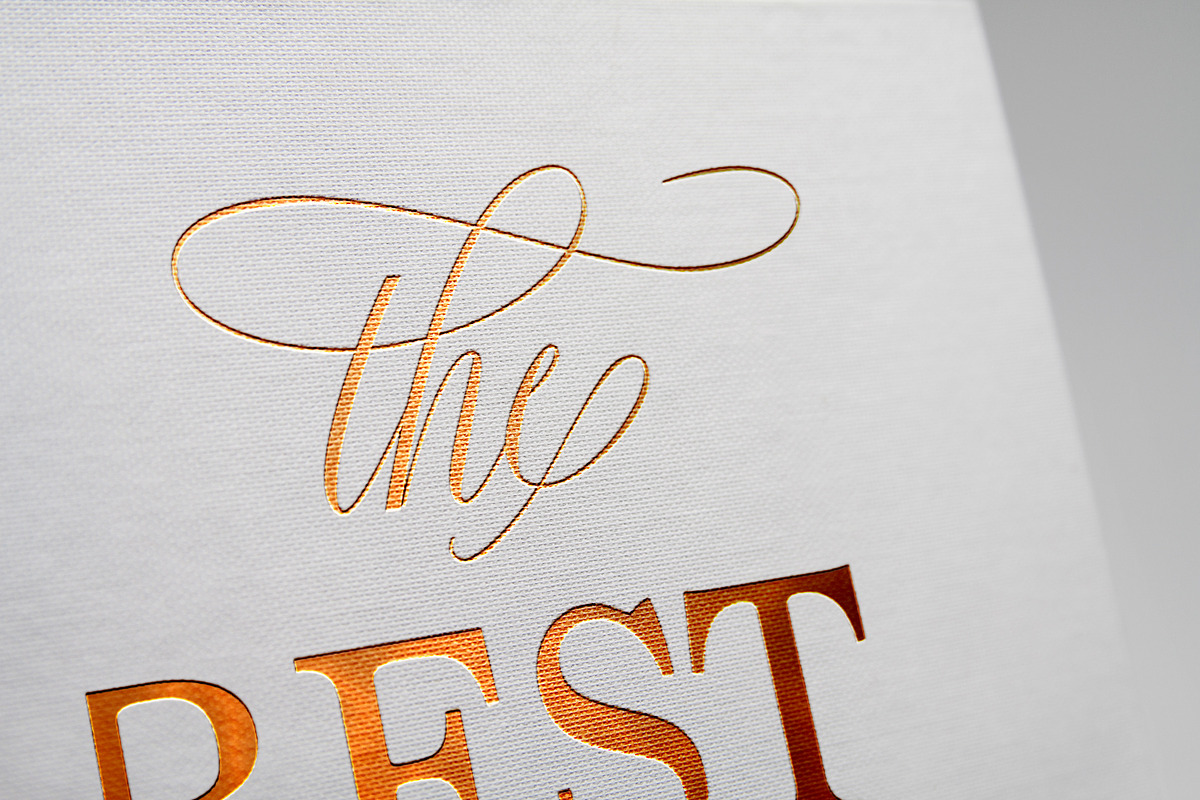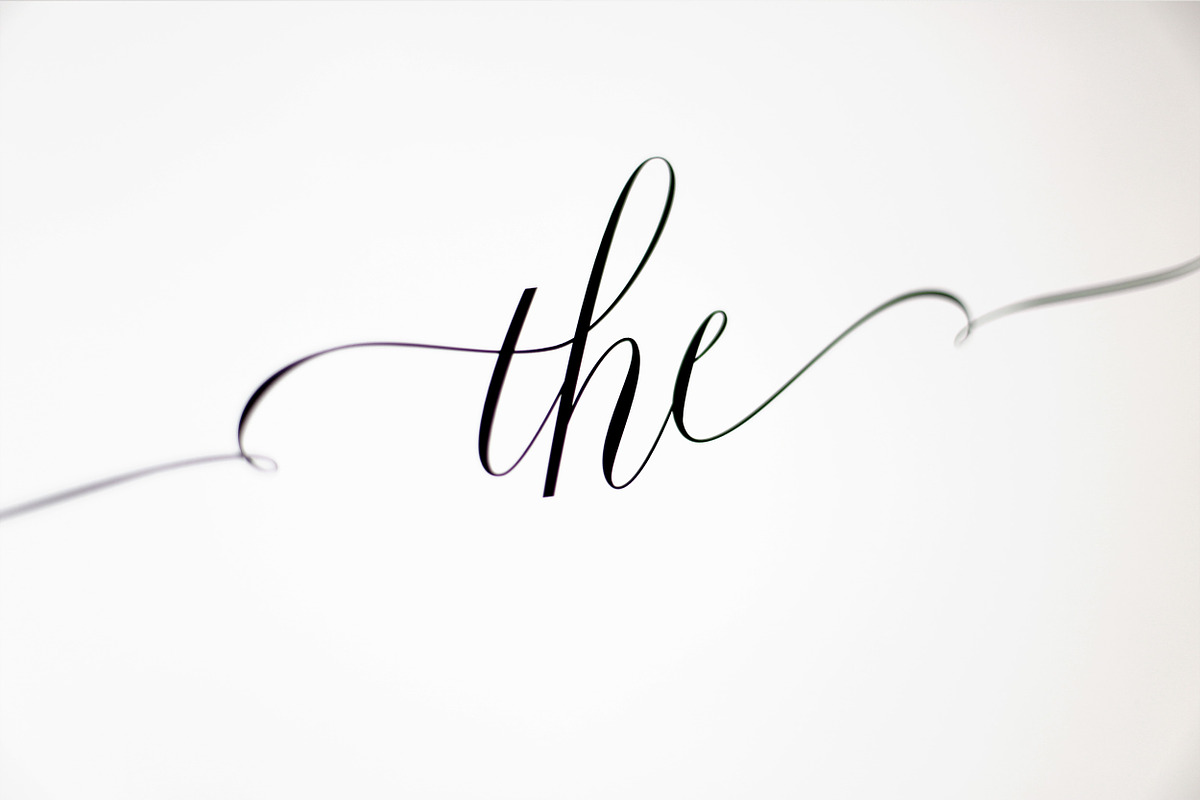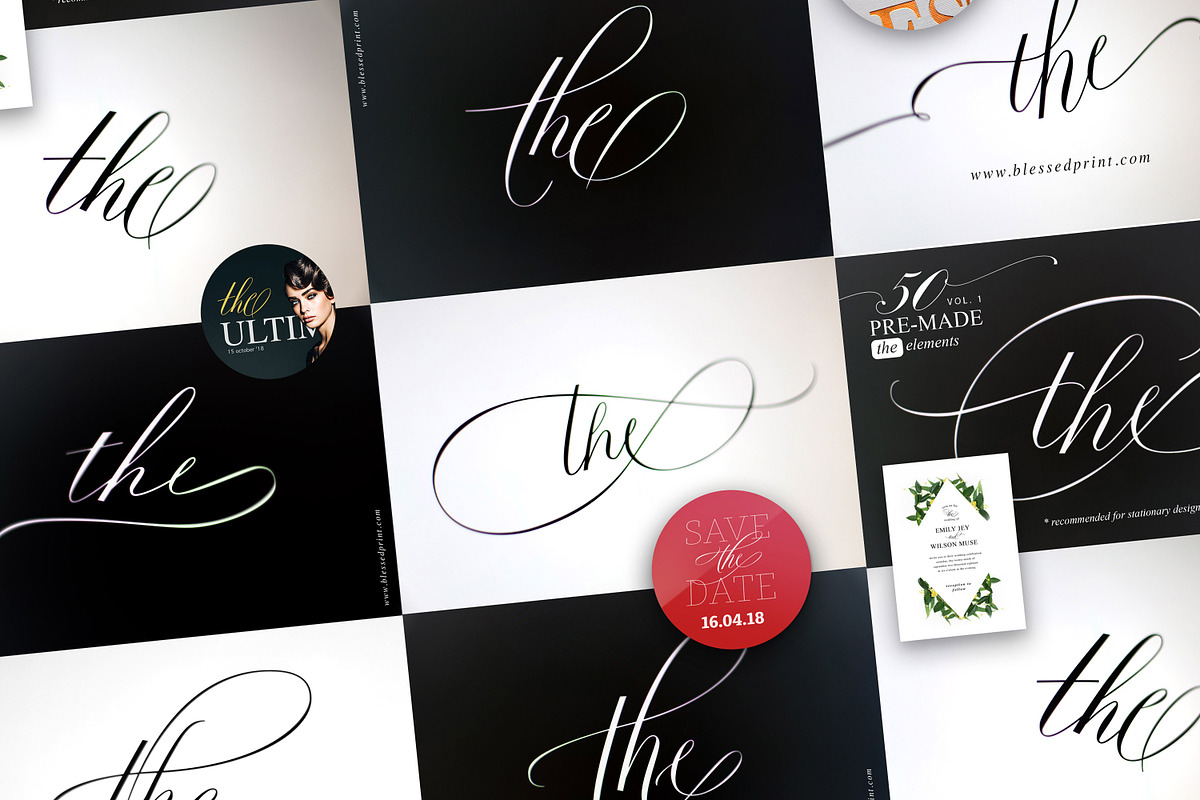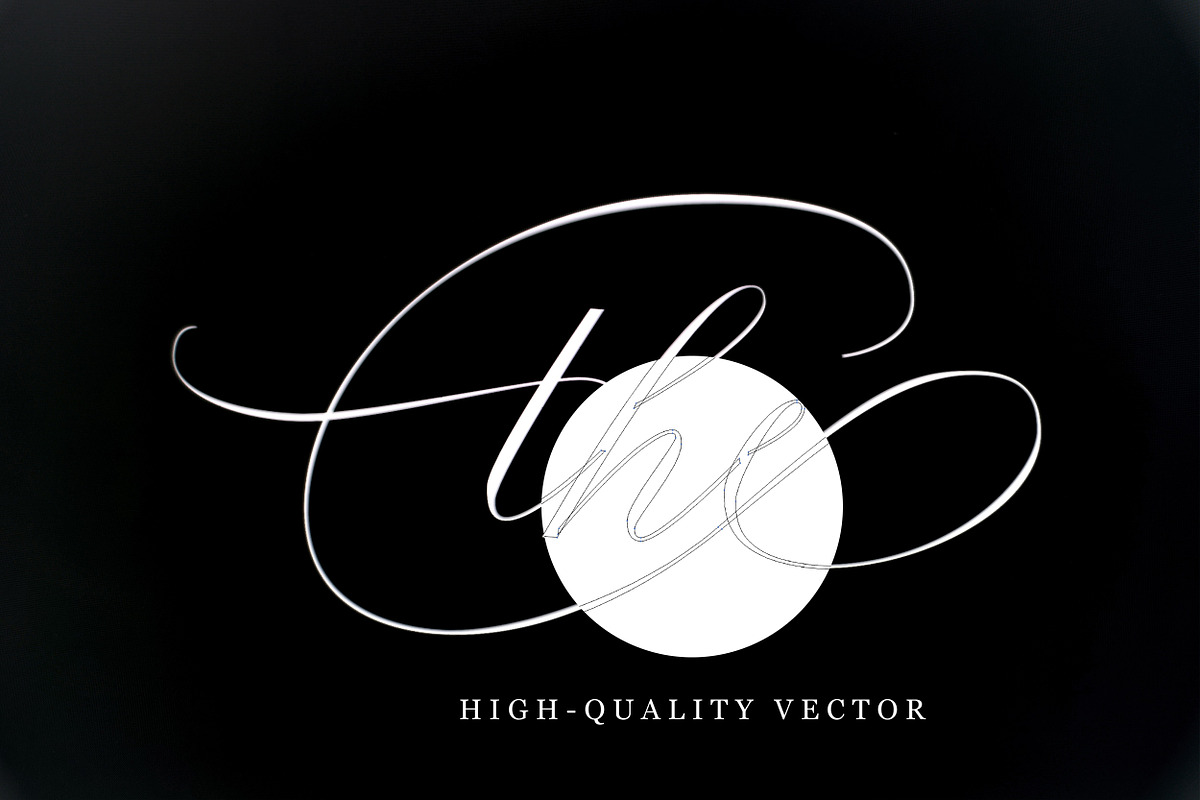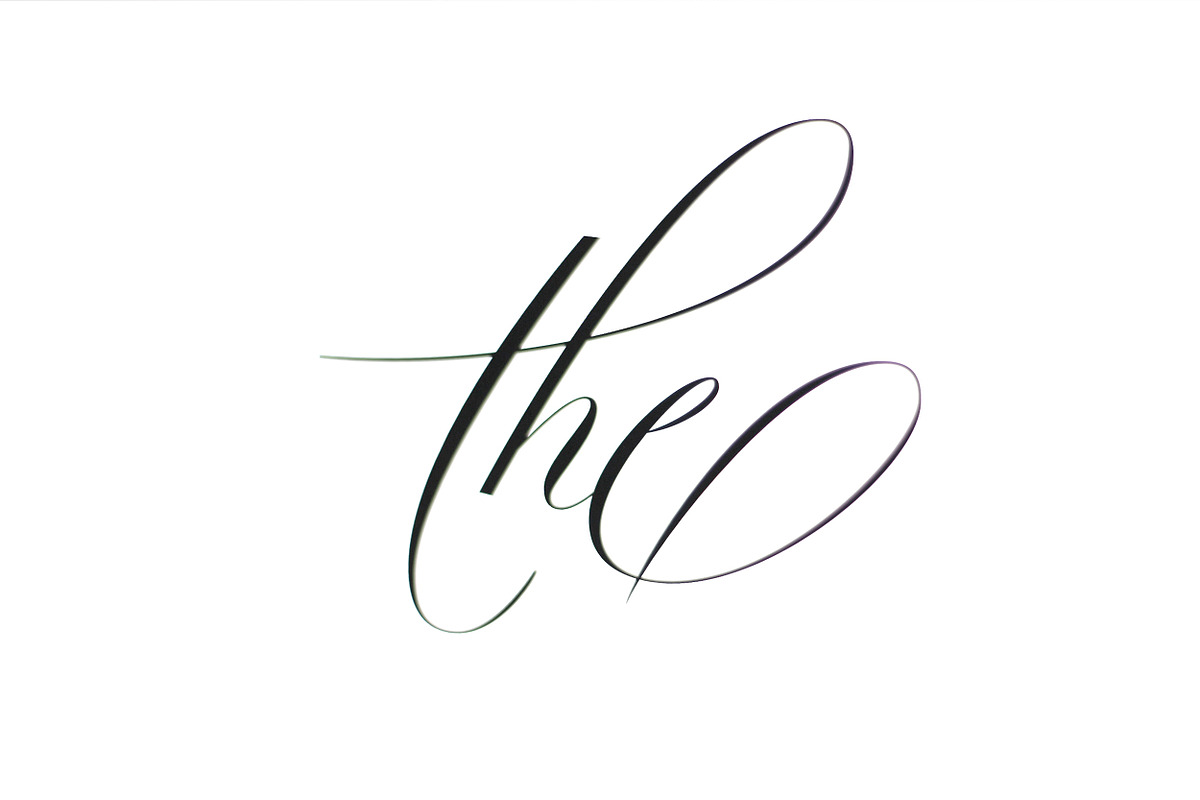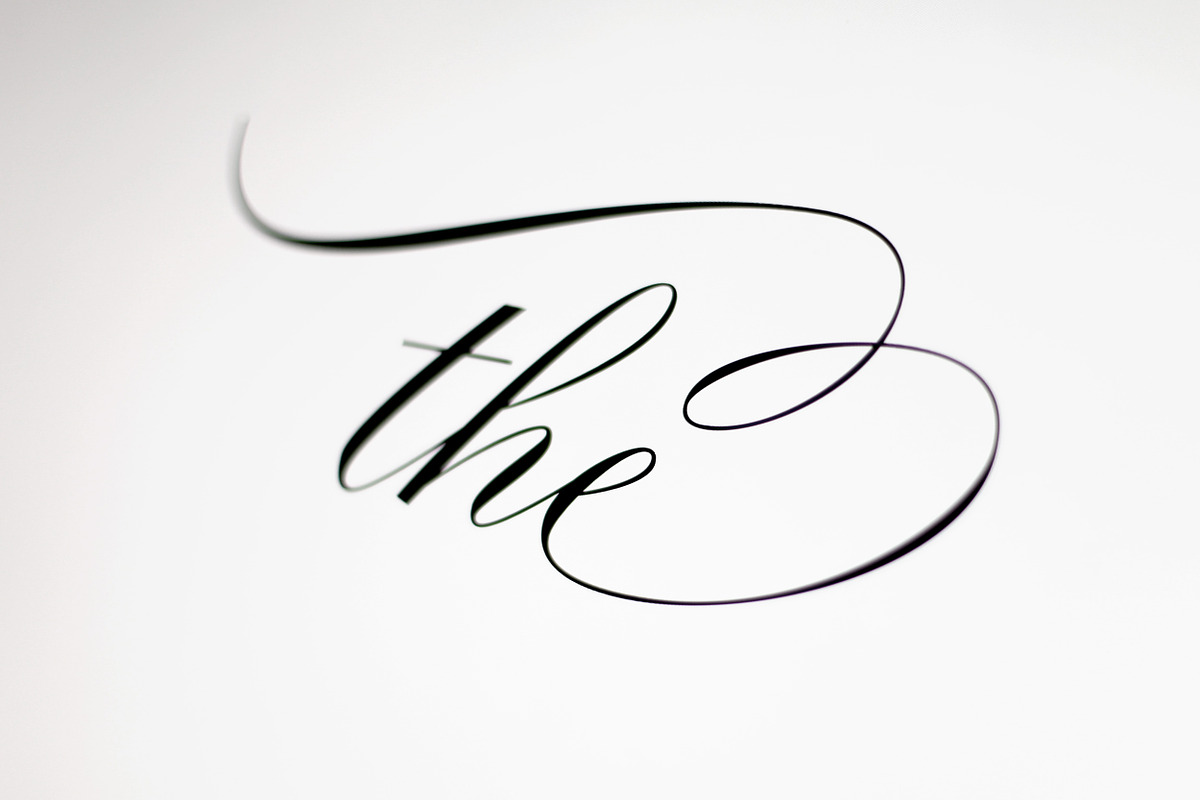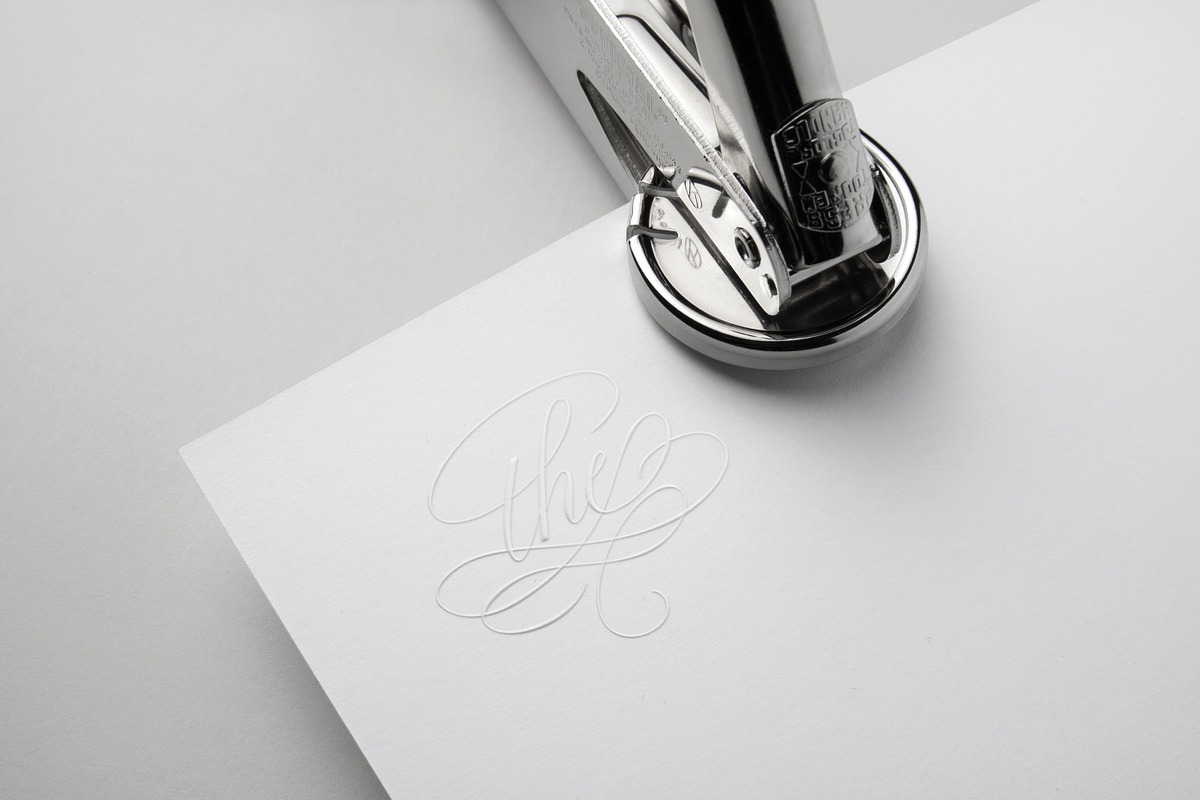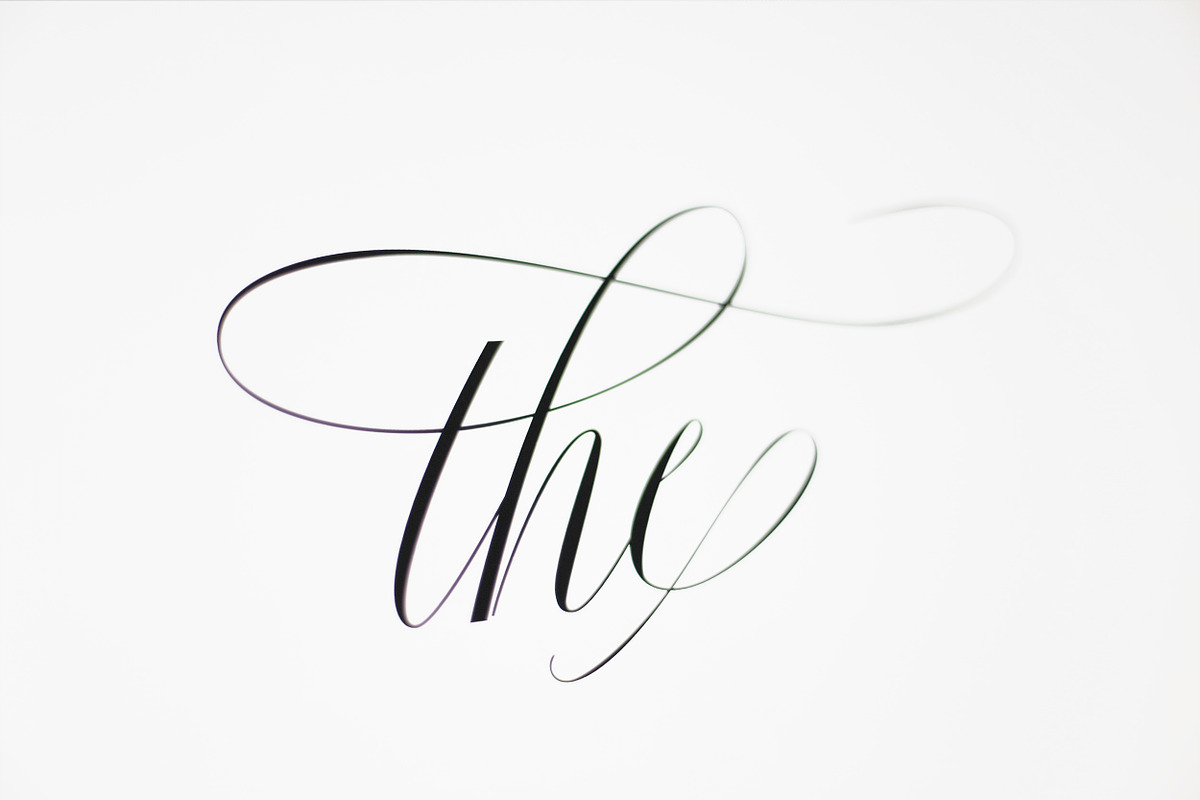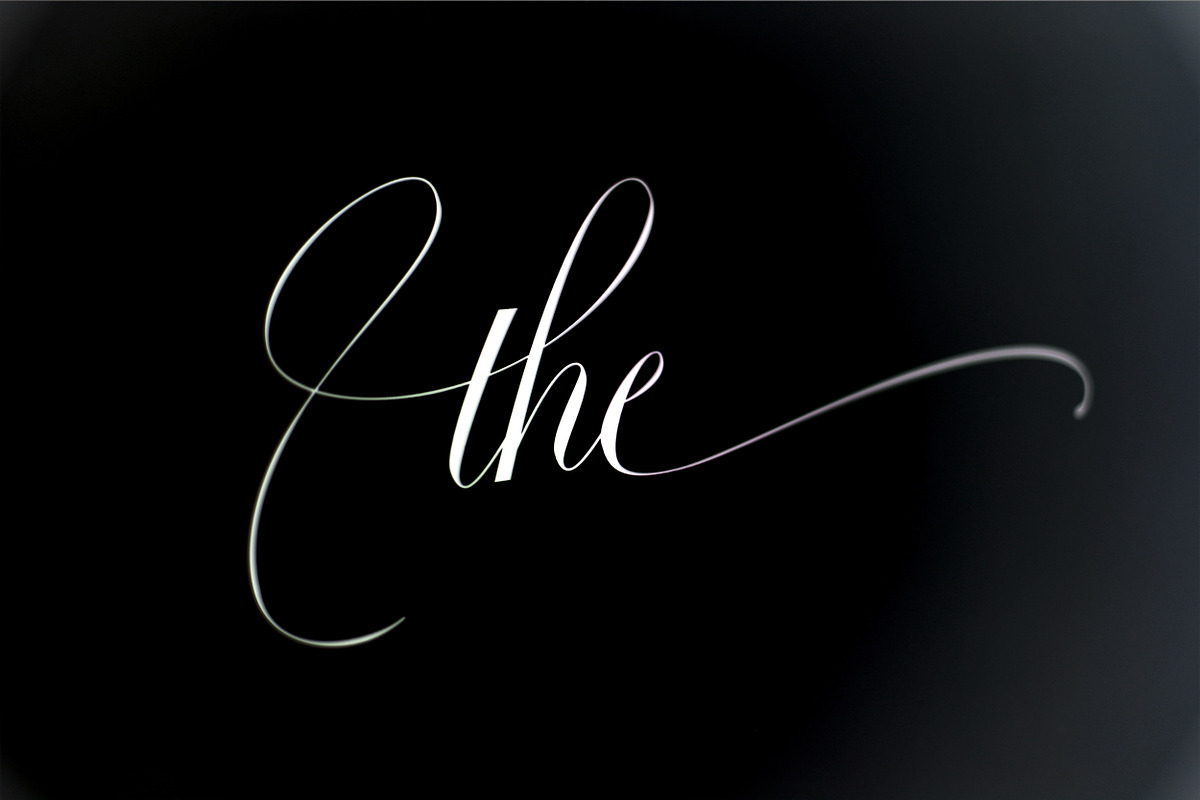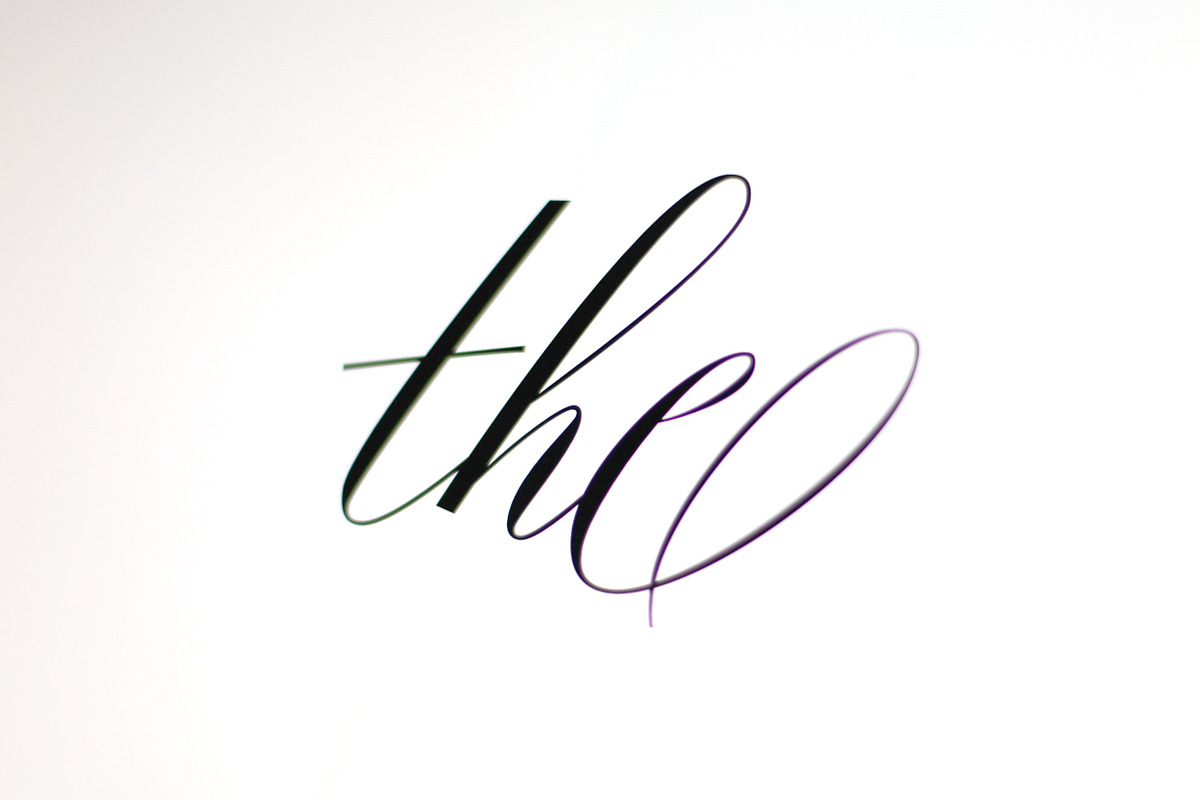
Fifty pre-made elements of "THE"
This pack will become the favorite tool for logo and wedding designers. Whenever you decide to add your design some elegant accent pick one of the fifty high-quality pre-made "THE". So many elegant swashes and swirls in one place ready to transform any wedding invitation to chic, classy and trendy design.
RECOMMENDED FOR
- stationary designers
- wedding invitations
- save the date
- magazine
- logo designs
- tattoo
- signs